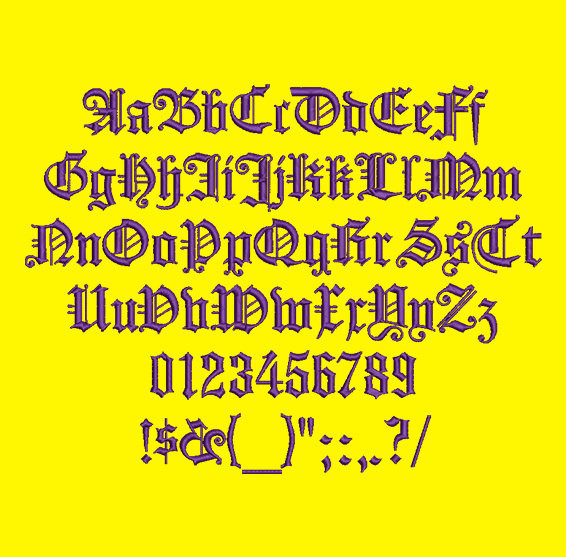
Exquisite Old German - Koenigsberger Gotisch Embroidery Font Now Includes BX Format
Title: Koenigsberger Gotisch machine embroidery font
This Classic Old German Style font is perfect for personalizing clothes, bags, towels and linens!